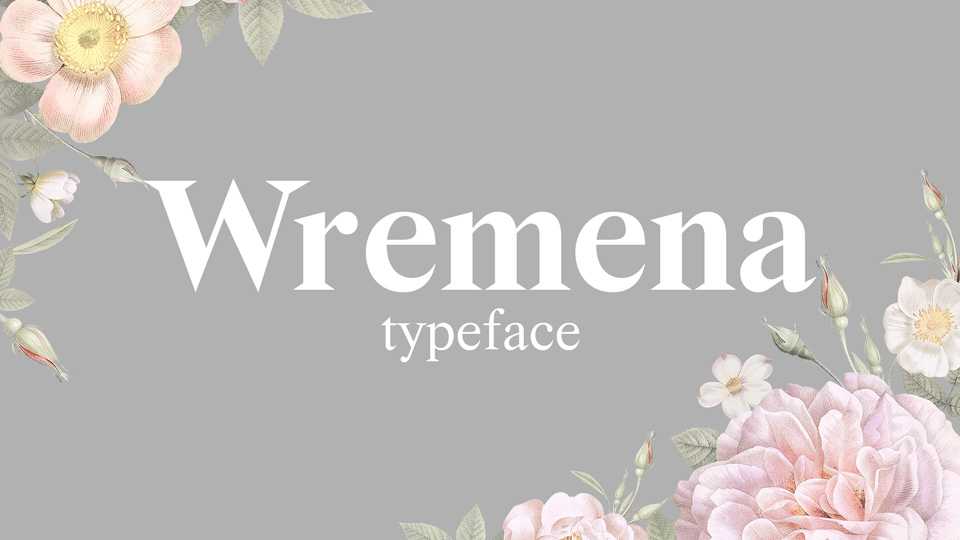
Download Wremena typeface, a serif font family in three weights. Wremena font fits great both for text and titles and can be used for editorial design.